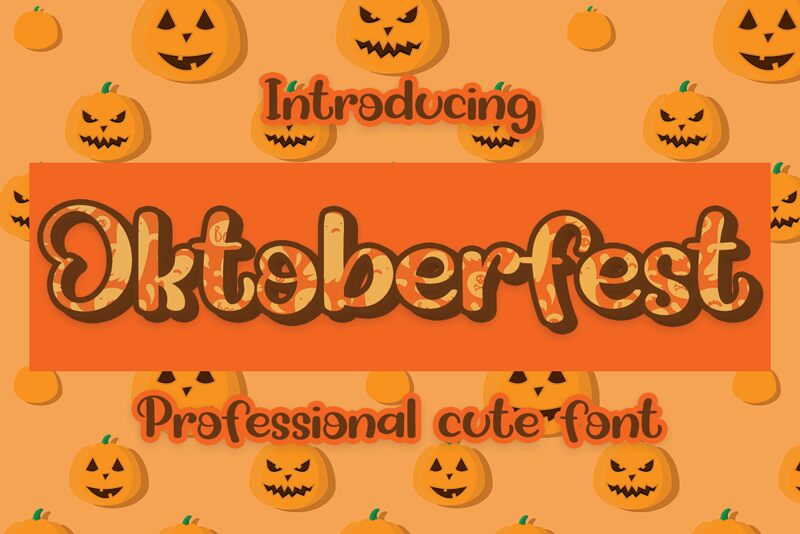
Oktoberfest
Oktoberfest is a cute and chic handwritten font designed by Erik Studio. It embodies playfulness and authenticity and is the perfect choice for any project that requires a joyful touch.